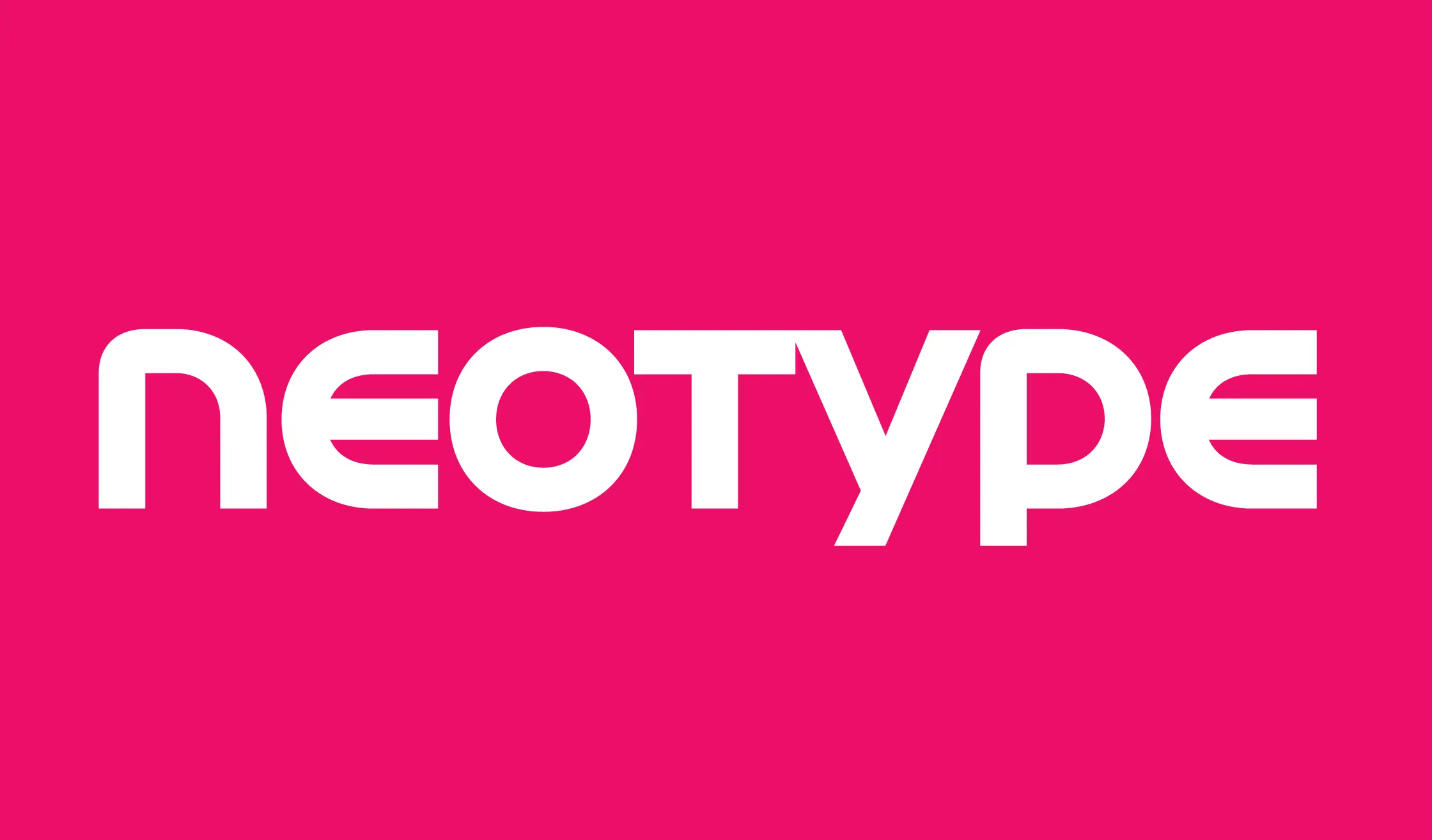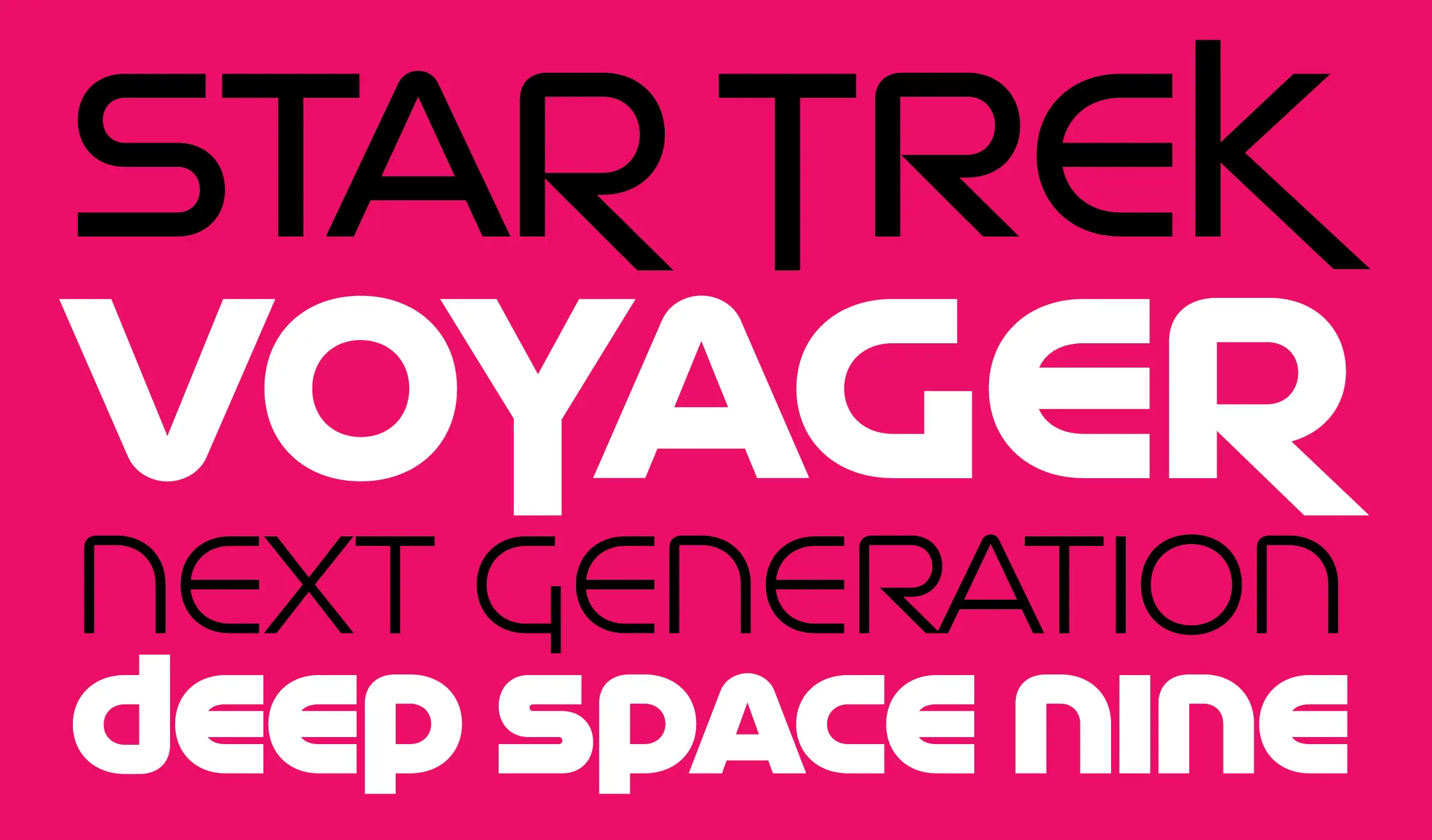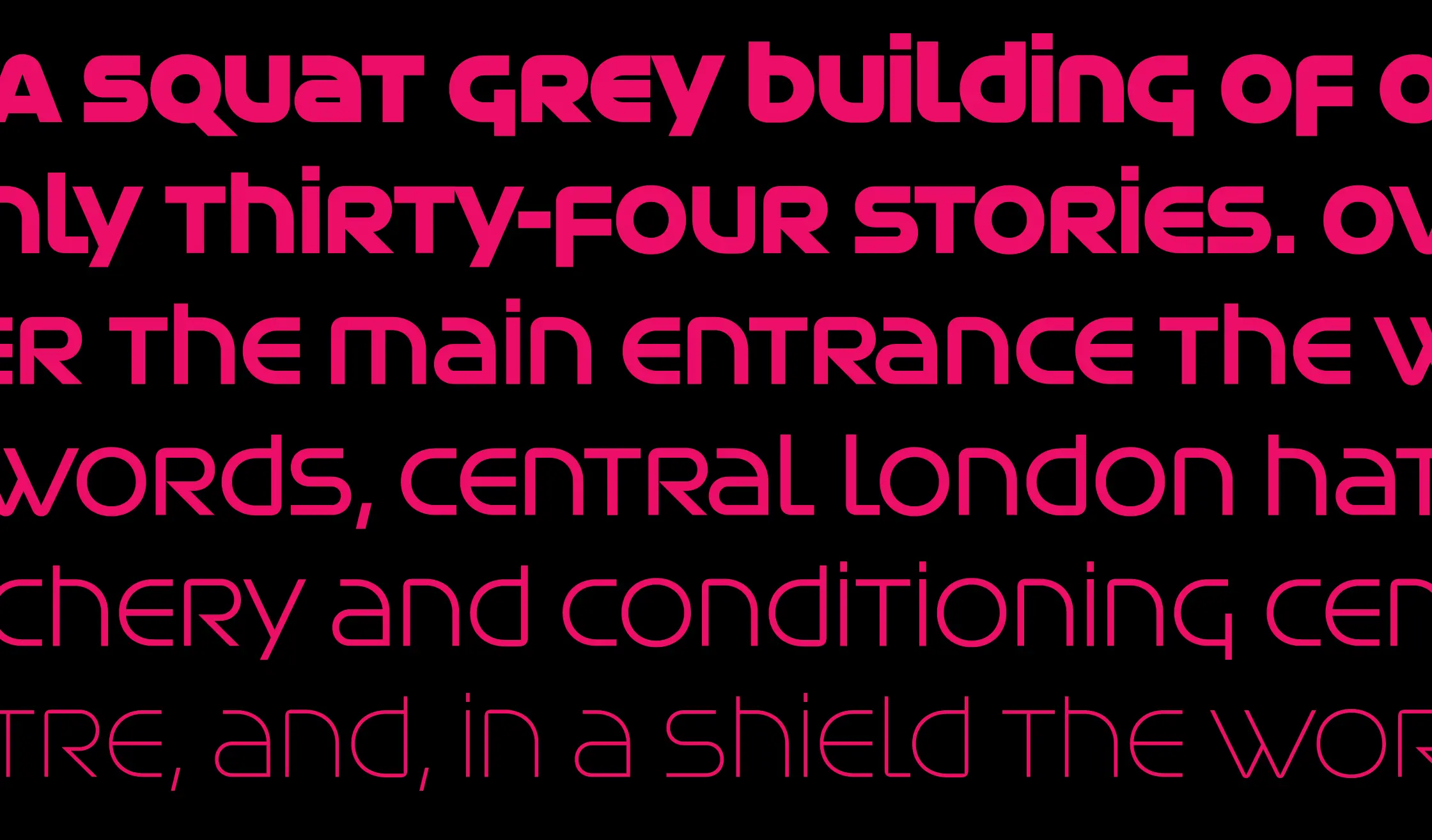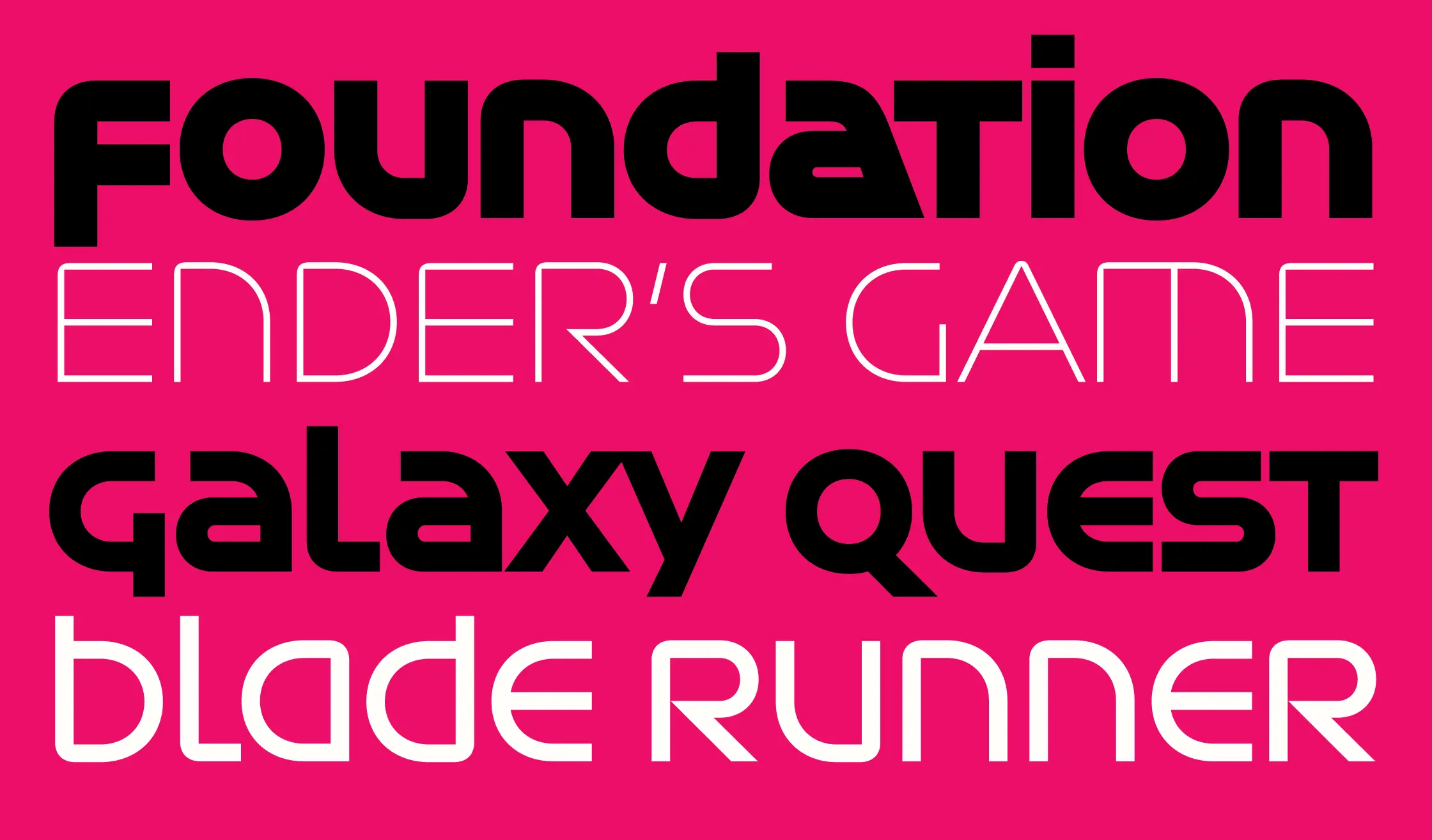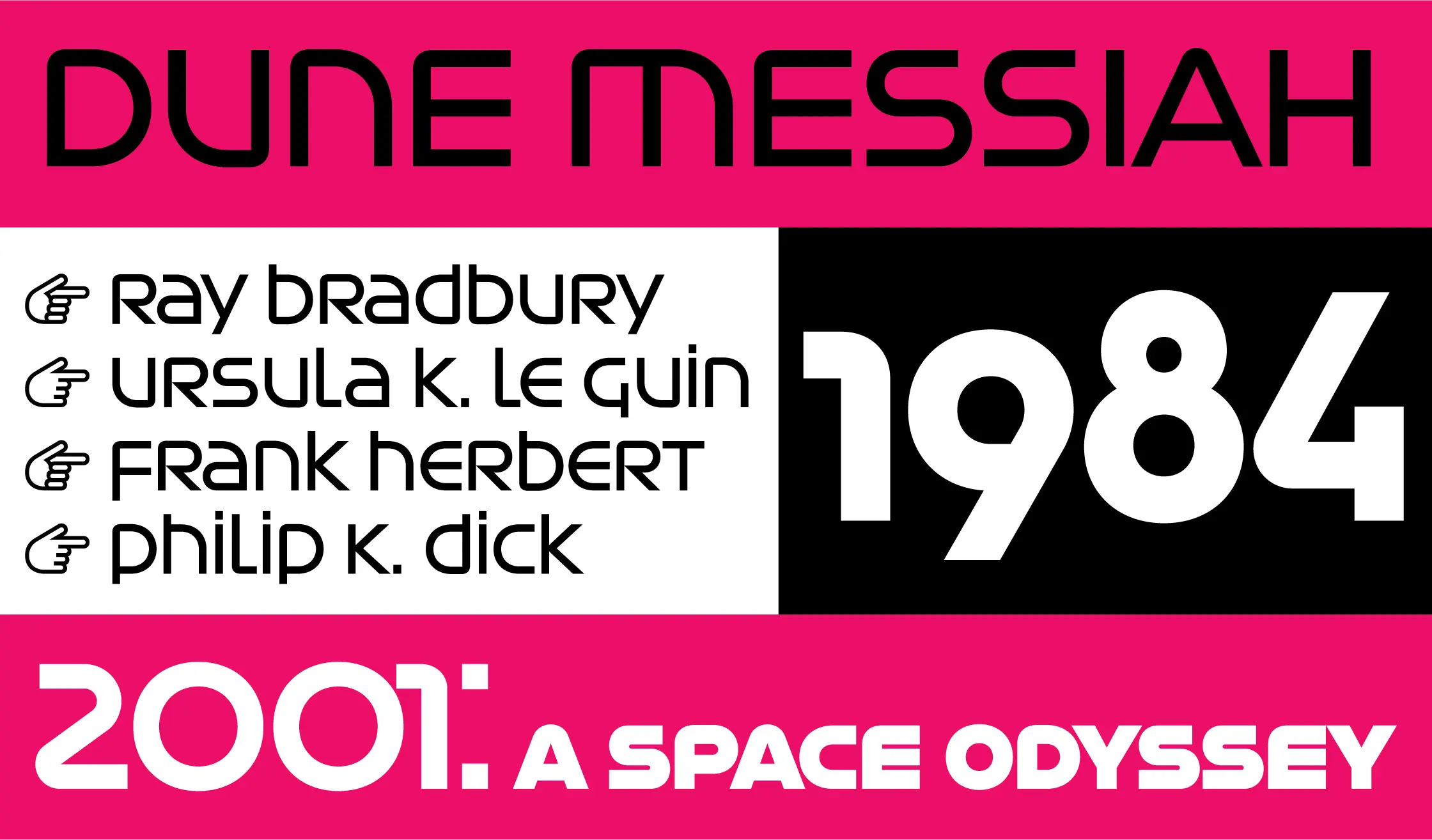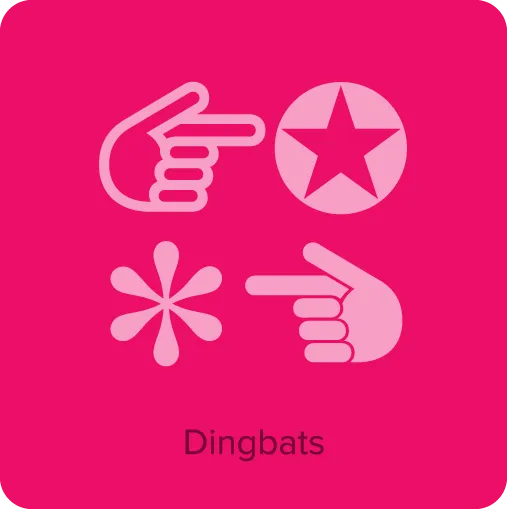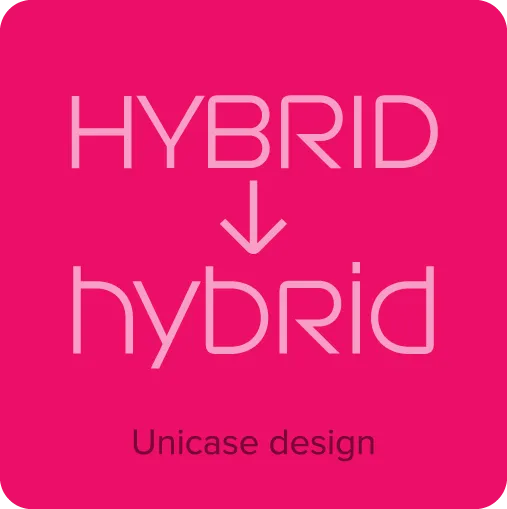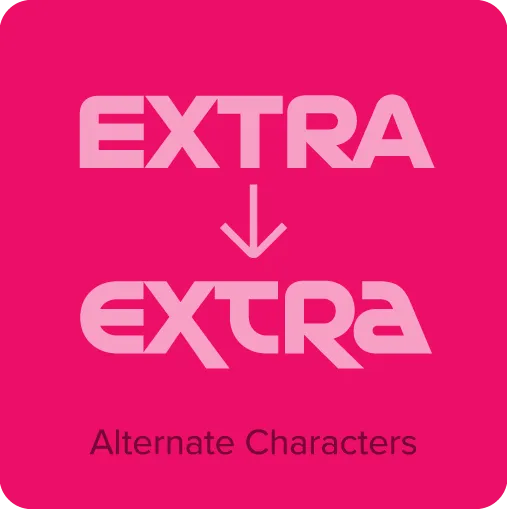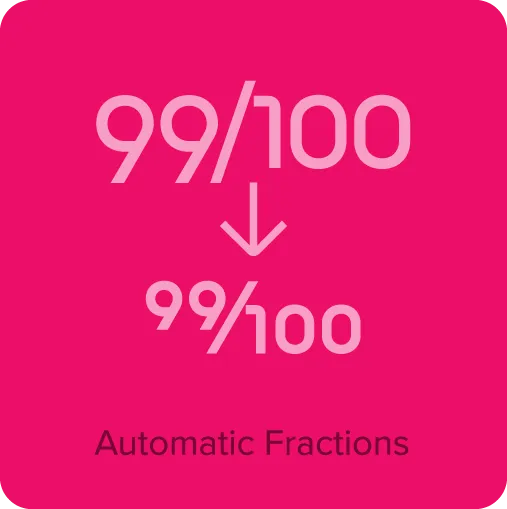
Neotype (2026) began as a college lettering project in 1976 when I was 20 years old. It was my first attempt at designing a typeface and is what made me fall in love with type design. Fifty years later, I picked up where I left off and finished it as a full-featured digital type family. It’s a geometric sans serif display face with a unicase design, modeled on uncial script, the origin of our modern lowercase letters. The result is a design that, in today’s world, feels retro-futuristic. In effect, it’s a revival of an unreleased 1970s techno typeface and would feel right at home in a science fiction or high-tech context. Although it’s meant for display use, it also works as an unconventional choice for text. It comes in six weights or as a variable font and includes many alternate characters and custom dingbats.